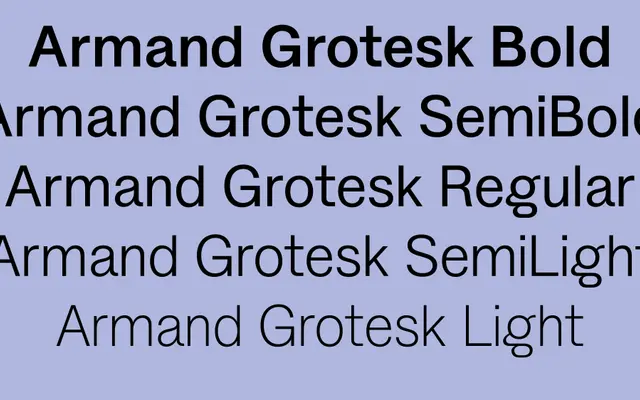
Armand Grotesk
Charlotte Rohde · Charlotte Rohde
A five-weight grotesque inspired by Armand Duval, the male protagonist of Alexandre Dumas Jr's nineteenth-century novel La Dame aux Camélias.
Named after Armand Duval from Dumas Jr's La Dame aux Camélias, the typeface draws a literary reference into a clean, contemporary grotesque. Five weights run from Light to Bold, with no italics or condensed variants. Glyph coverage spans Latin Extended with Vietnamese support, making it serviceable across Western European and Central European languages.
The name and visual character place it squarely in the grotesque sans-serif tradition, with a five-weight range typical of contemporary workhorse grotesques.